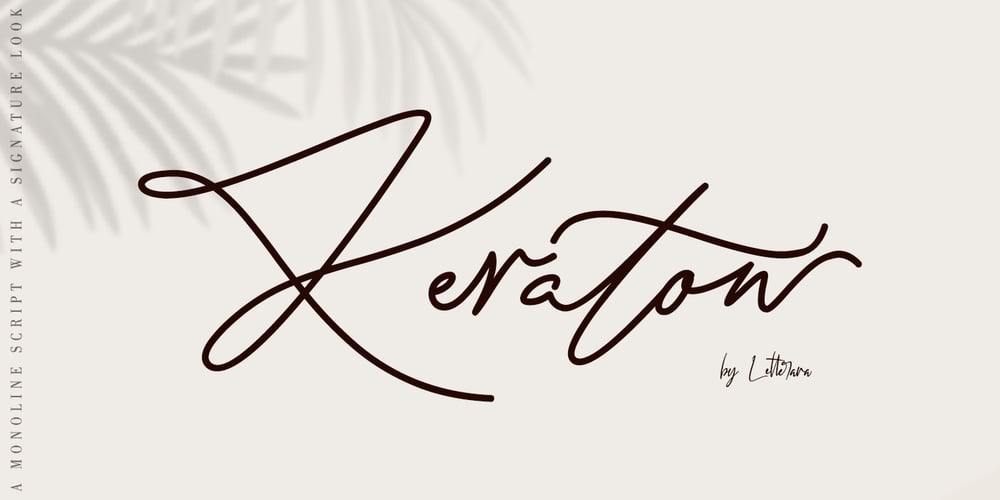
Keraton
Keraton font
Keraton Font Family was designed by Thomas Aradea and published by Letterara. Keraton contains 2 styles and family package options. Keraton is a monoline script with a signature look. It will take any design project to the next level.